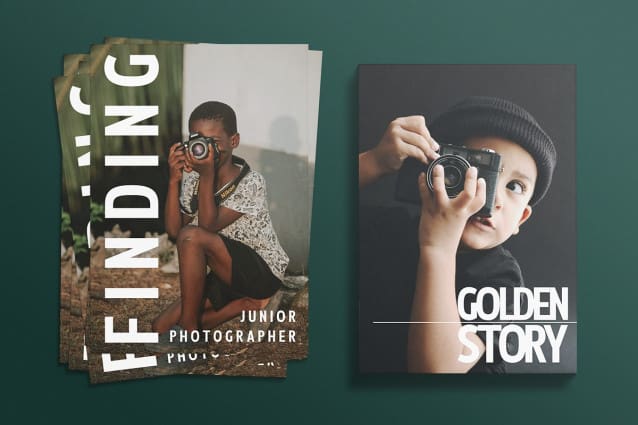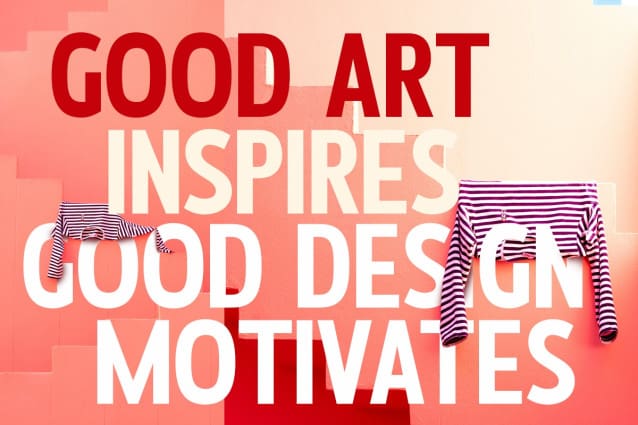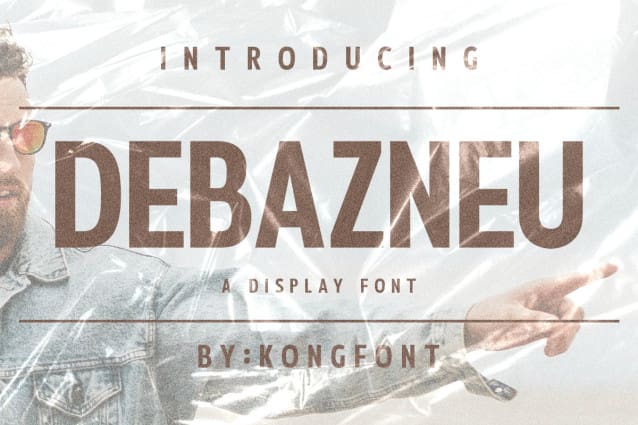
Debazneu Font
Debazneu Font – Modern Display Font was designed to present a simple and bold impression to anyone who sees it. This is in line with the characteristics of the letters in the Debazneu Font – Modern Display Font is very clean without unnecessary knick-knacks in each letter. This font stands tall and exudes a confident vibe. People who read various texts using this type of font don’t bother to be able to read and understand this font. In other words, the Debazneu Font – Modern Display Font is legible.
As the name implies, the Debazneu Font – Modern Display Font is very suitable for use as a font for all products. Those who like simple letters but are still aesthetic will choose this font. Modern impressions can use for banners, posters, and merchandise. This font can be printed small or large and still looks great from close up or afar. This font can be used for magazine covers and reading books.
Not only that, Debazneu Font – Modern Display Font can be used as a digital font. The font can be applied to a video intro title and outro. This font is suitable for product branding. These can be product brand tags and advertising posters. This font can also use as a business card.